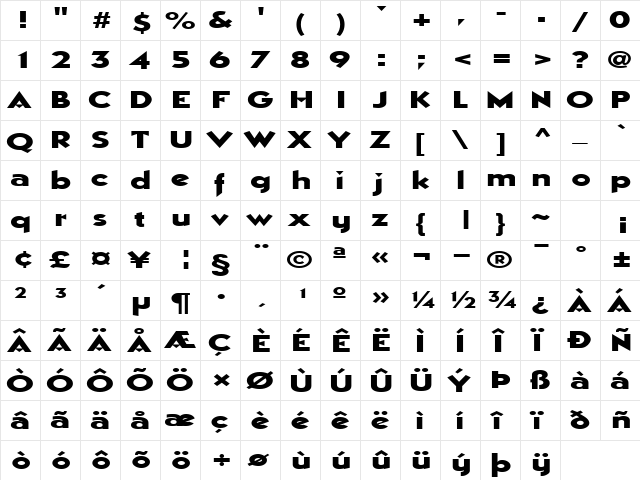
ManhattanExtended Regular Font Preview
ManhattanExtended Regular
Design Context for ManhattanExtended Typeface
ManhattanExtended is a composed and adaptable typeface that performs quietly and consistently across a wide range of design contexts.